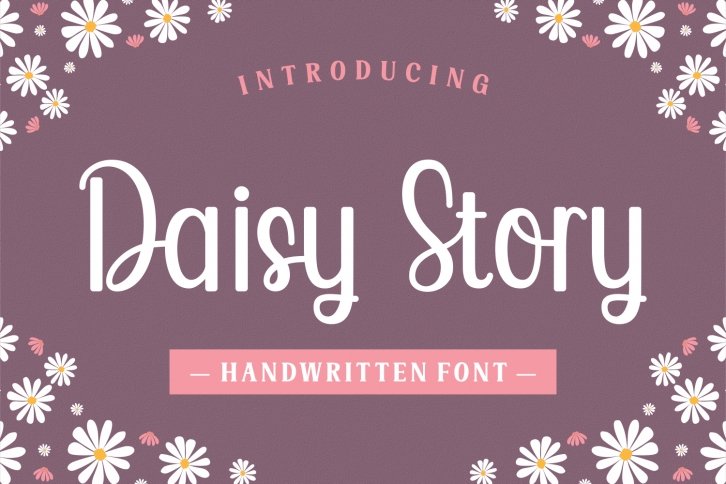
Daisy Story is a simple, delicate and well-balanced handwritten font. This font was particularly crafted for those who need a beautiful and refreshing look to their designs.